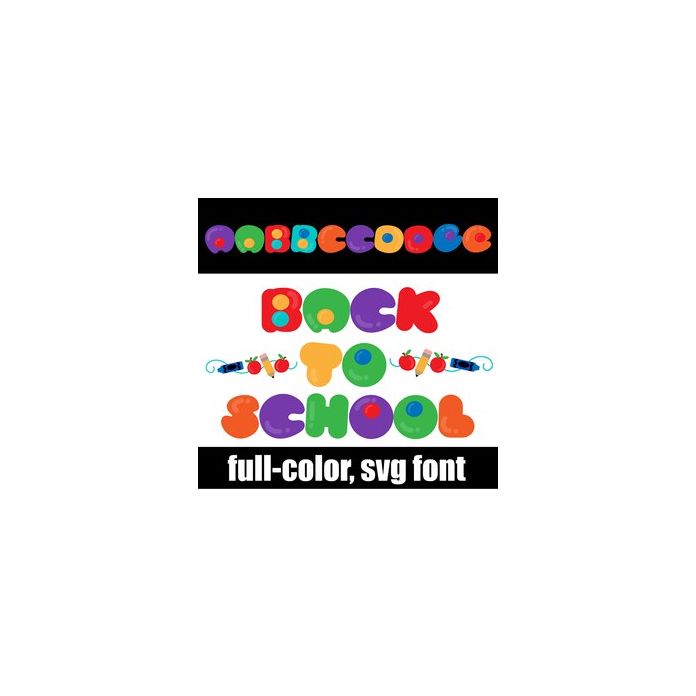
This full-color font features brightly colored rounded lettering with candy-like dots for holes. Access the school supply flourish by typing the greater than and less than glyph. There is an alt case w/ additional colors you can access through your system or Silhouette's glyph map.